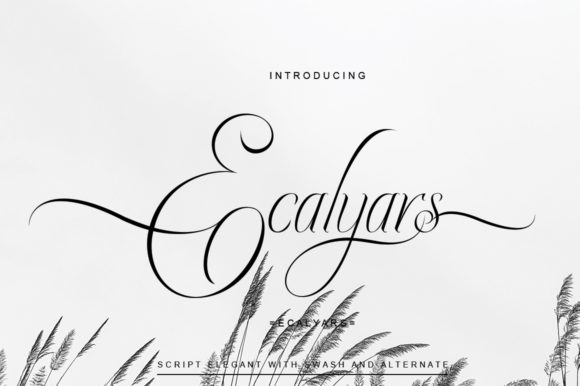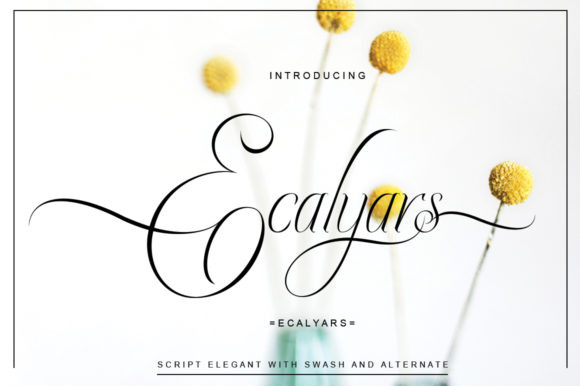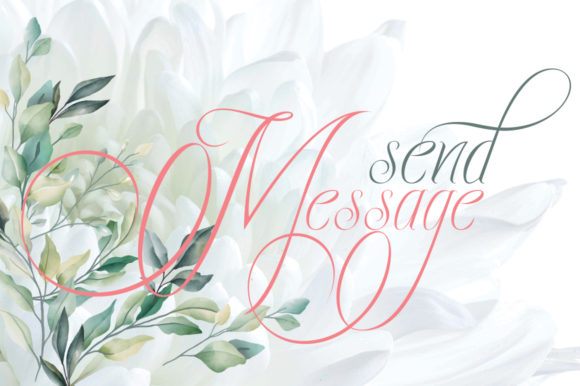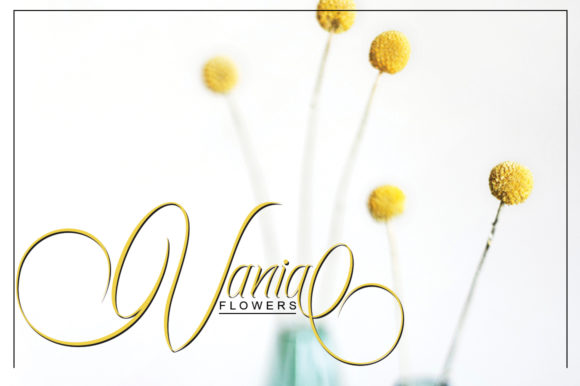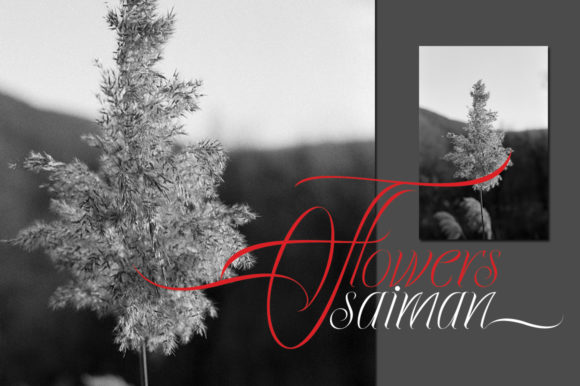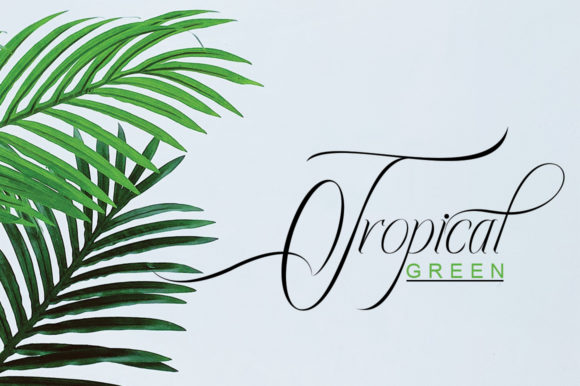
Ecalyars Font: Elevate Your Craft with Elegant Script
Ecalyars is a beautiful and elegant script that updates classic calligraphy with a fancy feel. Use it to take any craft idea to the next level! In this article, we’ll dive into the world of Ecalyars Font, exploring its features, benefits, and uses for designers and crafters.
What is Ecalyars Font?
Ecalyars Font is a stunning script font that combines traditional calligraphy with modern flair. Its elegant strokes, intricate details, and flowing curves make it perfect for adding a touch of sophistication to any project. Whether you’re a designer, crafter, or DIY enthusiast, Ecalyars Font is an excellent choice for creating visually appealing and professional-looking results.
Key Features of Ecalyars Font
- Elegant Script: Ecalyars Font boasts a beautiful, flowing script that exudes elegance and refinement.
- Classic Calligraphy: Inspired by traditional calligraphy, Ecalyars Font brings a sense of timelessness and sophistication to your projects.
- Fancy Feel: With its intricate details and ornate strokes, Ecalyars Font adds a touch of luxury and glamour to any design.
- Versatile: Suitable for a wide range of projects, from digital designs to handmade crafts, Ecalyars Font is a versatile addition to any creative toolkit.
Benefits of Using Ecalyars Font
So, why choose Ecalyars Font for your next project? Here are just a few benefits:
- Adds Sophistication: Ecalyars Font instantly elevates your designs, adding a level of sophistication and refinement that’s hard to achieve with standard fonts.
- Enhances Creativity: With its unique and elegant script, Ecalyars Font inspires creativity and encourages experimentation with new design ideas.
- Perfect for Branding: Establish a luxurious and high-end brand identity with Ecalyars Font, ideal for businesses and entrepreneurs looking to make a statement.
Using Ecalyars Font for Design and Crafting
Ecalyars Font is an incredibly versatile tool, suitable for a wide range of design and crafting applications. Here are some ideas to get you started:
- Digital Designs: Use Ecalyars Font in your digital designs, such as social media graphics, blog headers, and email templates.
- Handmade Crafts: Add a touch of elegance to your handmade crafts, including cards, invitations, and scrapbooking projects.
- Branding and Packaging: Establish a luxurious brand identity with Ecalyars Font, perfect for product packaging, labels, and business cards.
- DIY Projects: Elevate your DIY projects, such as home decor, jewelry, and fabric designs, with the sophisticated script of Ecalyars Font.
Tips and Tricks for Working with Ecalyars Font
To get the most out of Ecalyars Font, here are some tips and tricks to keep in mind:
- Experiment with Sizes: Play with different font sizes to achieve the desired effect, from subtle and elegant to bold and dramatic.
- Pair with Other Fonts: Combine Ecalyars Font with other fonts to create visually interesting and dynamic designs.
- Use in Combination with Images: Pair Ecalyars Font with high-quality images to create stunning visual compositions.
- Don’t Overdo It: Use Ecalyars Font judiciously, as too much of a good thing can be overwhelming.
Ecalyars Font is a beautiful and elegant script that can elevate any craft idea to the next level. With its classic calligraphy, fancy feel, and versatility, it’s an excellent choice for designers, crafters, and DIY enthusiasts. Whether you’re looking to add sophistication to your digital designs or handmade crafts, Ecalyars Font is a valuable addition to your creative toolkit.